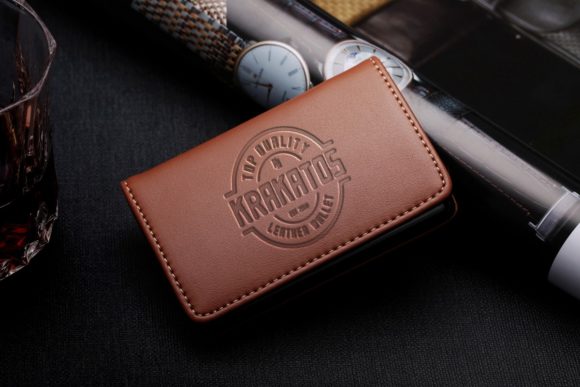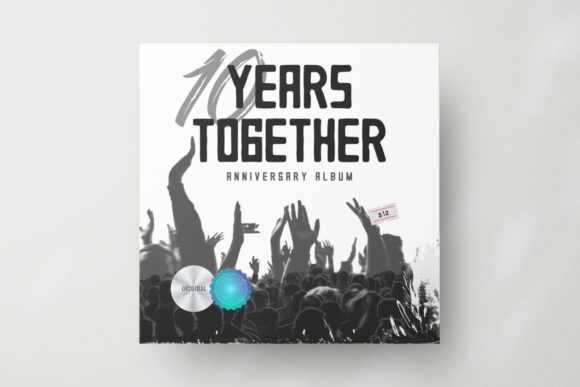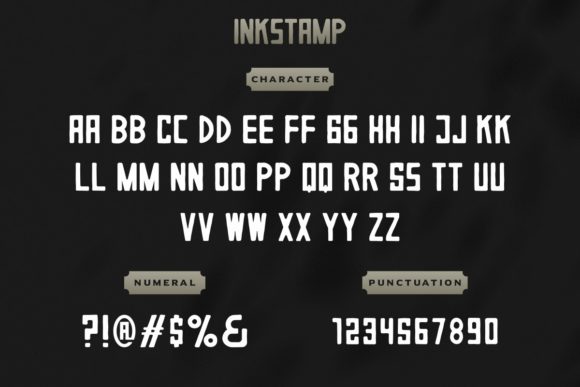
Introduction to Inkstamp Font
Remember that moment when you stumbled upon a vintage poster in a thrift store and couldn’t help but be captivated by its distressed charm? That’s exactly the kind of unique aesthetic that the Inkstamp Font brings to your designs. This exclusive sans serif font is inspired by the lettering of old press machines, giving your creative projects a touch of nostalgia and character.
As a designer, you’re always on the lookout for that special something to elevate your work. The Inkstamp Font is a valuable addition to any design resource, offering a high-quality, free download that’s perfect for a wide range of industries, from events and weddings to branding and fashion.
Key Features of Inkstamp Font
- High-quality, unique design perfect for creative projects, including invitations, posters, and more.
- Perfect for designers and artists looking for a distinctive and stylish design resource for their creative projects.
Honest Review: Inkstamp Font
I recently stumbled upon the Inkstamp Font, a unique and versatile design resource perfect for creative projects that demand a touch of elegance. One of the standout features of this font is its high quality and versatility, making it suitable for a wide range of applications, from packaging to branding.
Here are some aspects that work well: ✨
- High-quality, detailed design that’s perfect for creative projects.
- Easy to use and integrate into various design projects.
However, there are some limitations to consider: ⚠️
- The transparent background may not be ideal for certain design applications, requiring additional editing.
- The font may not be suitable for large-scale text, as it can become pixelated.
Overall, the Inkstamp Font is a solid addition to any designer’s toolkit. While it has its limitations, its unique design and versatility make it a valuable resource for creative projects. I would definitely recommend it to designers looking for a high-quality, free download.
Inkstamp Font
The Inkstamp Font is a unique design resource ideal for creative projects. Its high-quality, free download makes it an excellent choice for designers and artists looking to add a touch of elegance to their work.
Tips for Getting the Most Out of Inkstamp Font
To get the most out of the Inkstamp Font, use it in combination with images and backgrounds to create unique and eye-catching designs. Experiment with different font sizes and styles to add depth and interest to your work.
The Inkstamp Font is ideal for use in wedding invitations, party invitations, and other special occasion designs. Its elegant and sophisticated look makes it perfect for use in corporate branding and marketing materials.